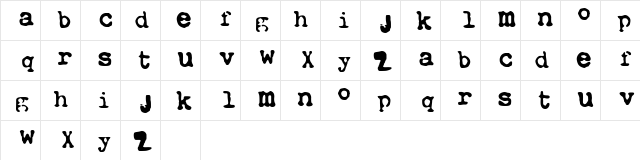
Xtctype Regular Free Font
Xtctype Regular
Design Context for Xtctype
Xtctype is a composed and adaptable typeface that performs quietly and consistently across a wide range of design contexts.